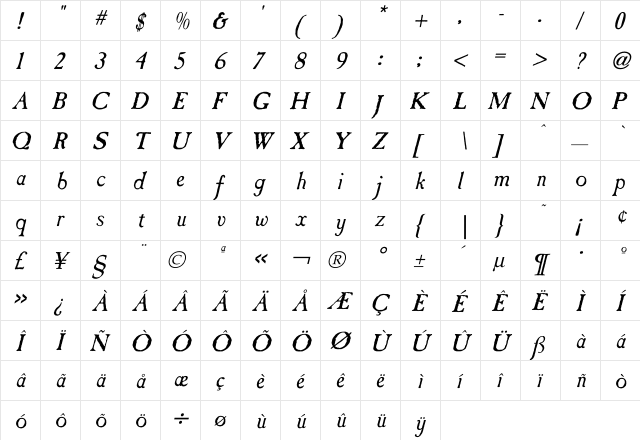
Caslon AntiqueItalic Font Preview
Caslon AntiqueItalic
Design Context for Caslon Typeface
Caslon has the warm character of retro typography — evoking diners, record sleeves, and the golden age of print advertising. The slanted form adds forward momentum and visual energy.
Ideal for diner signage, record shop branding, 70s/80s-themed projects, and heritage product labels.
Font Pairing: Combine Caslon with a simple slab or neutral sans — period-accurate companions reinforce the vintage feel without competing for attention.
Pro Tip: Lean into Caslon's period character by pairing it with aged paper textures, muted colour palettes, and vintage illustration styles.